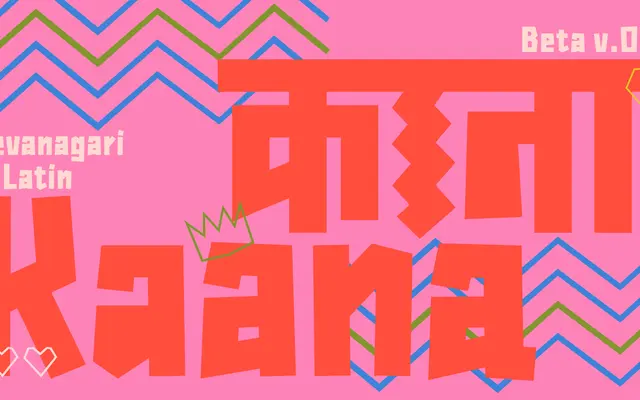
Kaana
A bold display typeface designed by Kimya Gandhi, built from straight lines, sharp corners and triangular cuts across Devanagari and Latin scripts.
Kaana began with Devanagari, with the geometric logic of straight lines, sharp angles and triangular forms later extended into a Latin companion in collaboration with Pranavi Chopra and Rob Keller. Currently at v0.1 with a single Bold weight and 401 characters, the family is planned to grow to six weights with italics. Alongside the letterforms, it includes alternate zigzag aa-matras via OpenType stylistic sets and a growing collection of icons and ornaments.
Built entirely from straight lines, sharp corners and triangular cuts, Kaana is an ornamental display typeface with a distinctive geometric and angular visual logic applied across both Devanagari and Latin scripts.